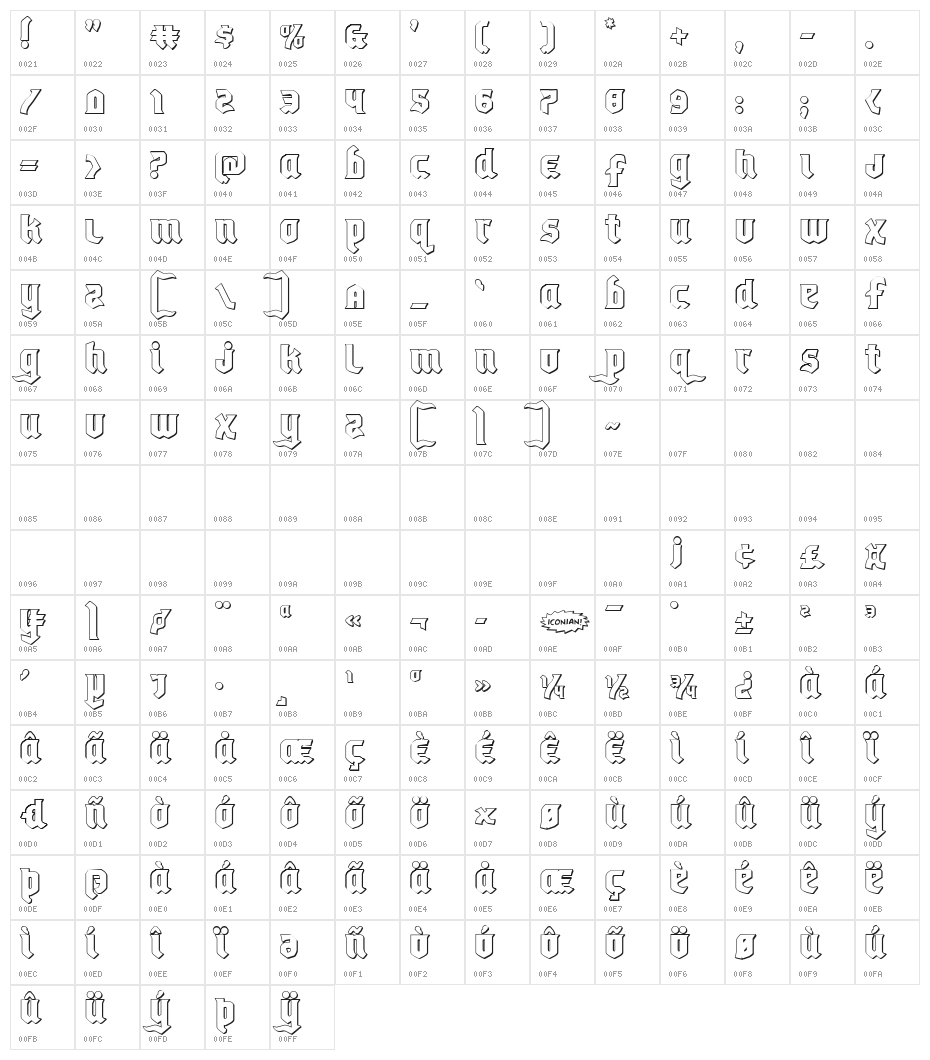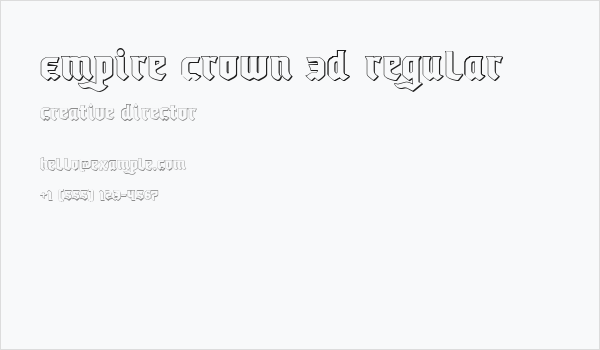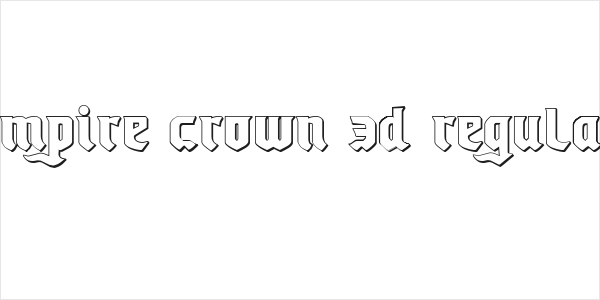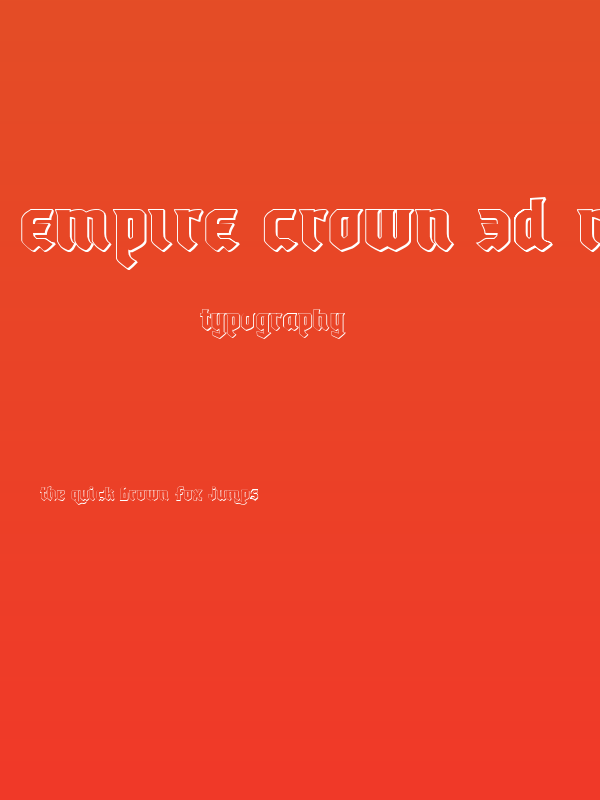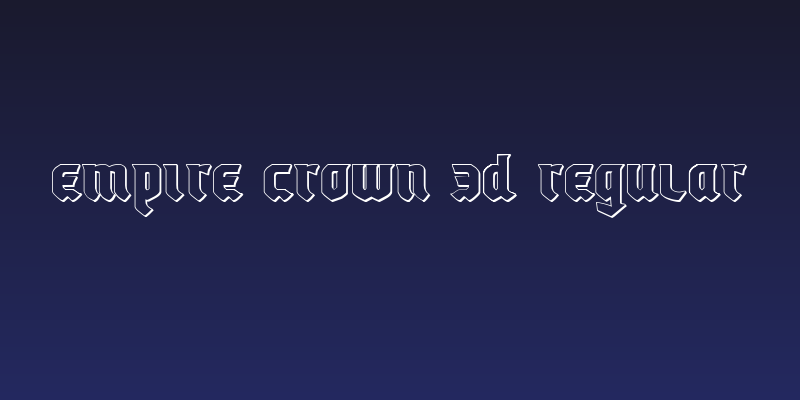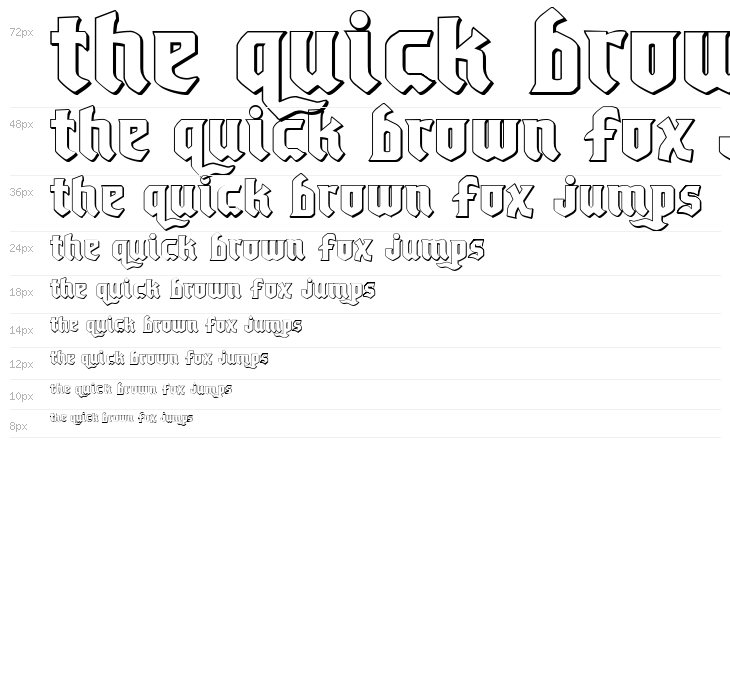
Empire Crown 3D Regular Font
Empire Crown 3D Regular Description
This font features a bold, three-dimensional style with a strong presence. The characters have a distinct, angular design that gives them a modern and edgy appearance. The uppercase and lowercase letters maintain a consistent geometric form, while the numbers and special characters complement the overall aesthetic. The font's 3D effect is achieved through a clever use of shading and outlines, adding depth and dimension to the text. This makes it particularly eye-catching and suitable for designs that require a standout element.